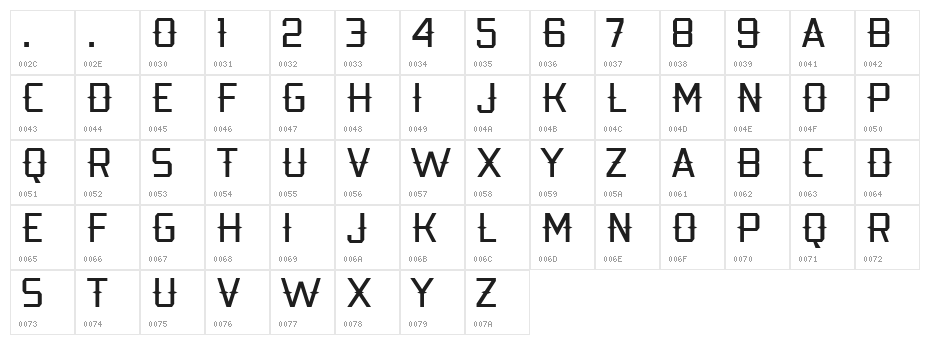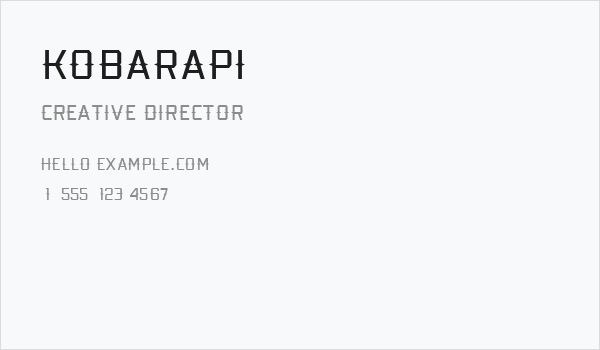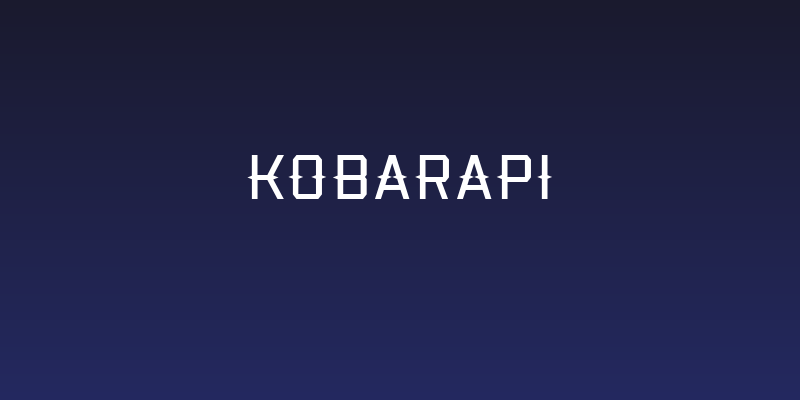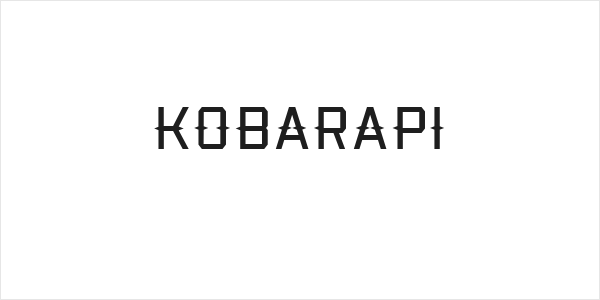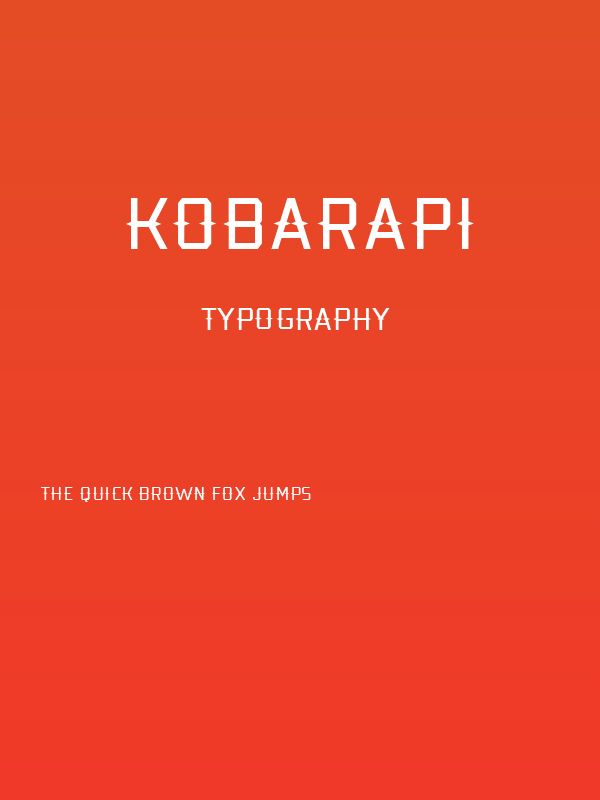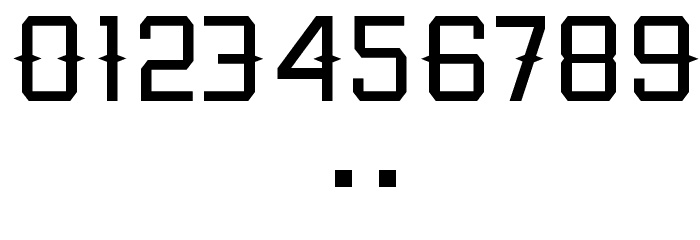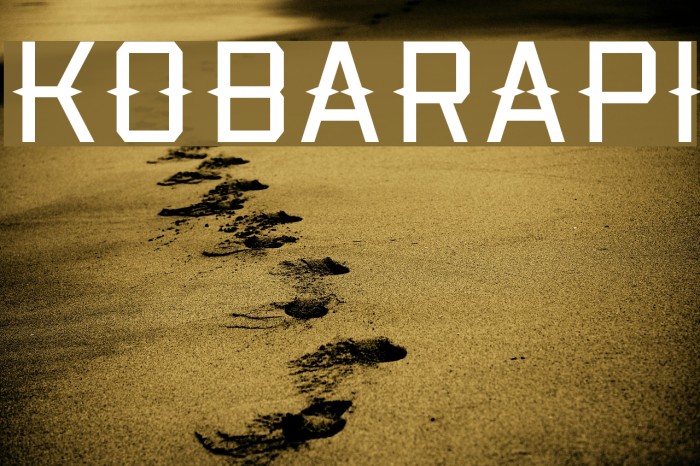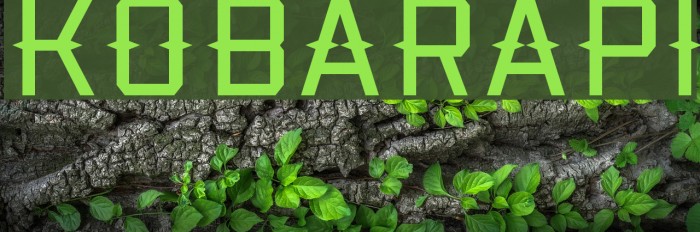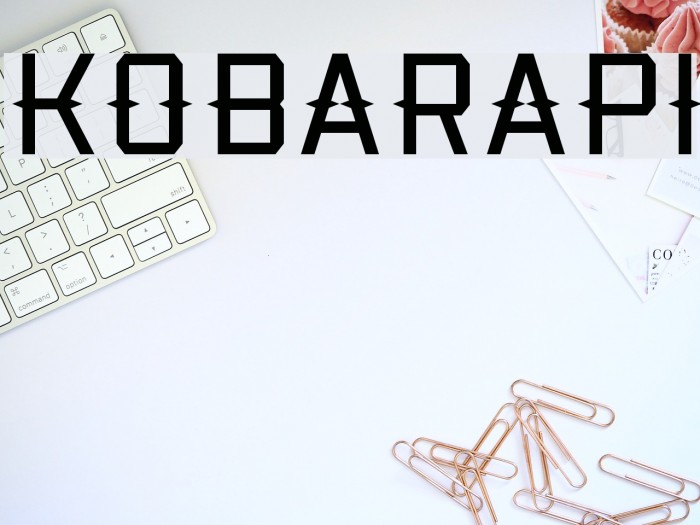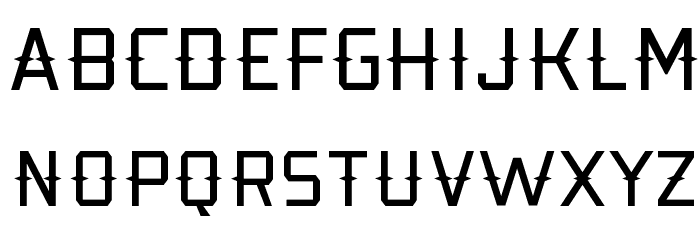
Kobarapi Font
Kobarapi Description
This font exhibits a bold and geometric style, characterized by its angular and structured letterforms. The design features consistent stroke widths and sharp edges, giving it a modern and industrial appearance. The characters are uniformly spaced, contributing to a clean and organized look. The numerals and special characters maintain the same geometric aesthetic, ensuring visual harmony across all glyphs. This font is ideal for projects that require a strong and impactful visual presence, such as branding, headlines, and signage.
| Use Case | Headlines, Logos, Signage |
| Proposed Projects | Ideal for branding, headlines, signage, and any project needing a strong visual impact. |